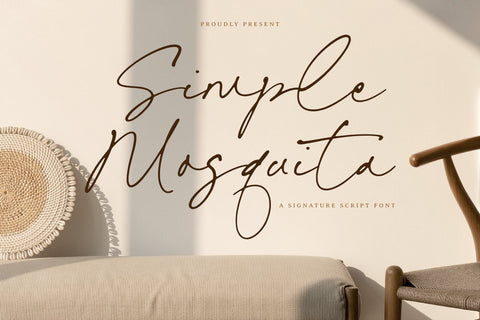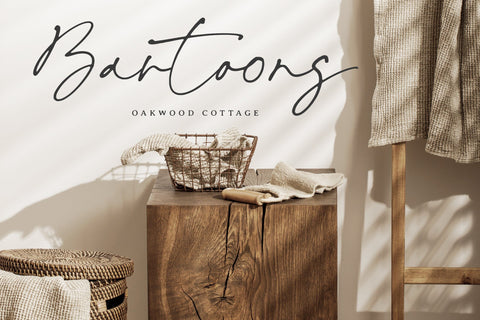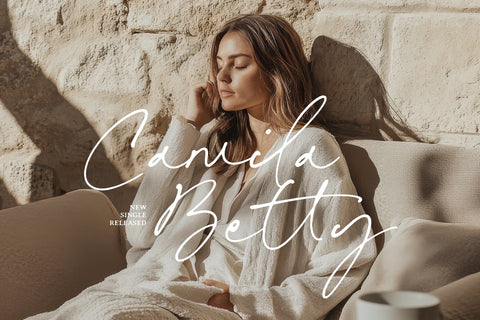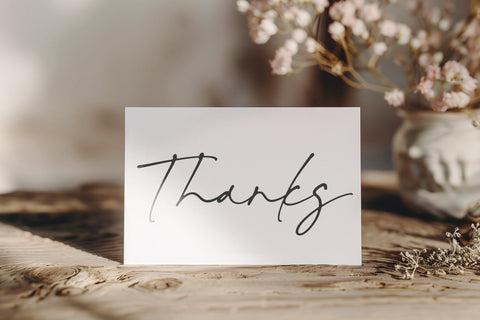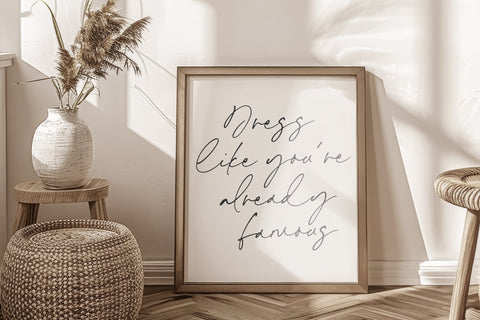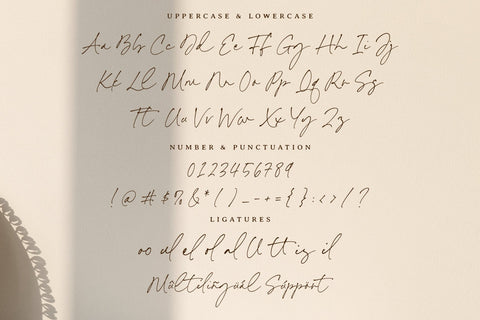
Simple Mosquita - Signature Script Font
Simple Mosquita is a Signature Script Font
This font is a refined signature script font that captivates with its graceful ligatures and fluid strokes. Perfect for adding a touch of elegance to any design, it offers a seamless, handwritten look that enhances invitations, branding, and personal stationery. Its charming style strikes a balance between sophistication and warmth, making every word feel unique and inviting. Ideal for those seeking to infuse their projects with a sense of artistry.
- Ligature
Simple Mosquita Font also supports multilingualism